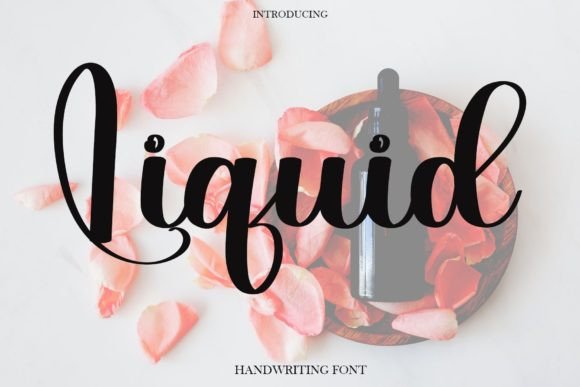
Introducing Liquid Font - The Ultimate Script for Captivating Designs!
Immerse yourself in the fluidity of Liquid Font, a delicate and graceful script that will make your creations come alive. Crafted by the renowned Harlek studio, Liquid Font is the epitome of elegance, designed to add a touch of sophistication and allure to any project.
Its enchanting characters pirouette across the baseline, inviting you to craft designs that exude a luxurious ambiance. Whether you're yearning for invitations that whisper enchantment or branding that radiates timelessness, Liquid Font is the perfect choice.
Indulge in the versatility of Liquid Font, perfectly suited for a myriad of creations. From wedding invitations to enchanting logos, this script will elevate your designs to new heights. Its timeless appeal ensures that your creations will remain cherished for years to come.
Unleash the power of Liquid Font today and witness the transformation of your designs into captivating masterpieces. Its beauty and grace will leave an indelible mark on your audience, making your creations truly unforgettable. Embrace the allure of Liquid Font and let your imagination soar!